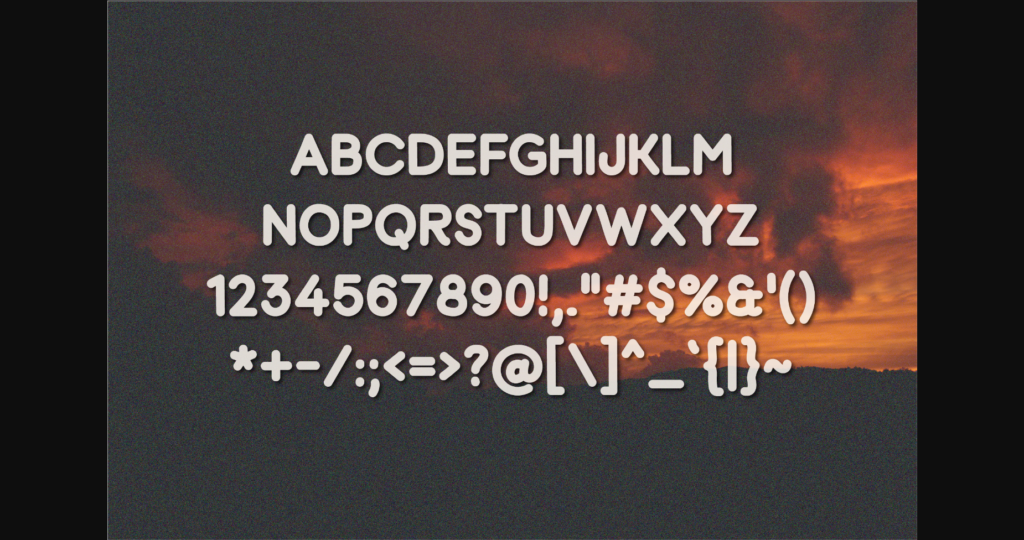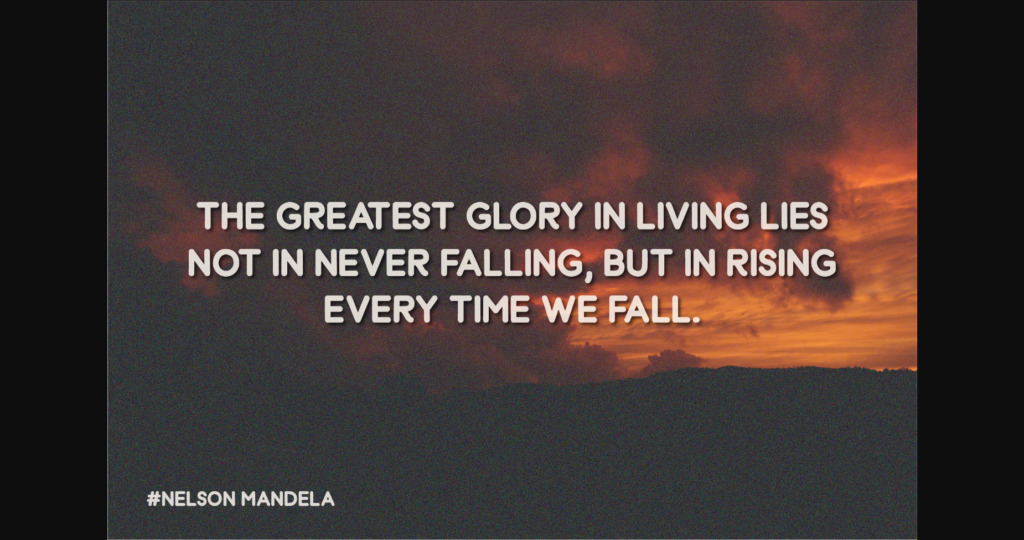
HomeSans Serif FontsAlvocado Font Sans Serif Fonts Alvocado Font FacebookXPinterestWhatsApp 1 of 7 ... Alvocado Font Poster 2... Alvocado Font Poster 3... Alvocado Font Poster 4... Alvocado Font Poster 5... Alvocado Font Poster 6... Alvocado Font Poster 7... About Alvocado Font Alvocado is a quirky all-caps font made up of capital letters. This font is perfect for social media or crafty projects. Simple and smooth perfect for crafting, t-shirts, decals, cards, invitations and so much more. DOWNLOAD NOW People also explored Evocative Font Madame Font Everybody Font Deanjan Oo Font Zabarjad Font Amsterdam Font Always Funny Duo Queenista Font The Proactive Font 307 0 TagsAlvocado Font Previous articleBroccoli Cupcakes FontNext articleAlmonds Font LEAVE A REPLY Cancel reply Comment: Please enter your comment! Name:* Please enter your name here Email:* You have entered an incorrect email address! Please enter your email address here Website: Save my name, email, and website in this browser for the next time I comment. Personal Use Free Sushi Stroke Personal Use Free Read more about this font Hiters Personal Use Free Read more about this font Bosk Personal Use Free Read more about this font Heart Personal Use Free Read more about this font BLOG How to Cut Any Font on Cricut: Convert a Font to SVG (Free) Turn any font into a clean SVG so it cuts crisp on Cricut - a quick 3-step workflow using a free font-to-SVG tool. Fonts That Capture the Spirit of New York City Transform Your Website: Elevate Your Typography with 7 Best Web Font Generators Exploring Font Trends